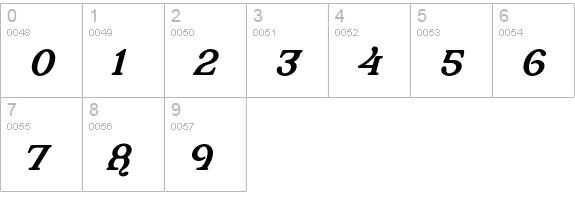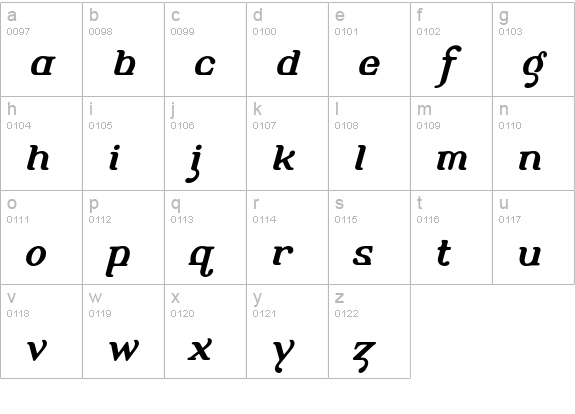
Alembic-BoldItalicTwo is a striking and sophisticated typeface that exudes elegance and modernity. Its bold and italic design gives it a strong and dynamic presence, making it perfect for adding a touch of flair to any design project. The sleek curves and sharp edges of Alembic-BoldItalicTwo make it a versatile choice for both headings and body text, ensuring that your message is conveyed with clarity and style. This font is not only visually appealing but also highly legible, making it a practical choice for a wide range of applications. Whether you're designing a website, creating marketing materials, or working on a branding project, Alembic-BoldItalicTwo is sure to make a lasting impression. Best of all, Alembic-BoldItalicTwo is available for free download at FontsMarket.com. This means that you can easily access this beautiful font and use it in your projects without any cost. Don't miss out on the opportunity to enhance your designs with the stunning Alembic-BoldItalicTwo font - download it today and elevate your creative work to the next level.